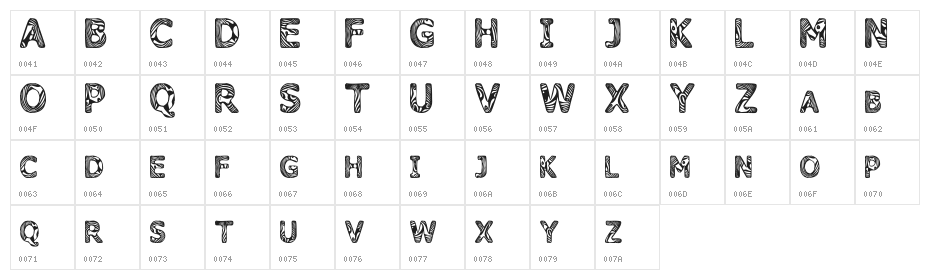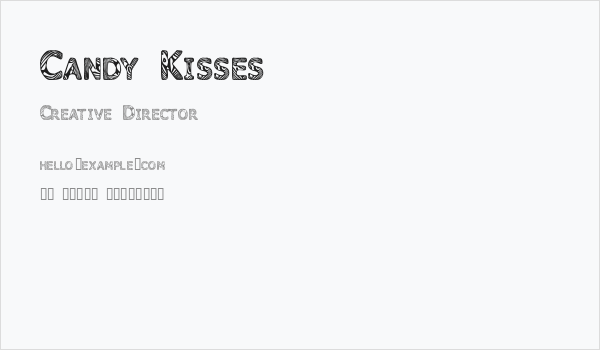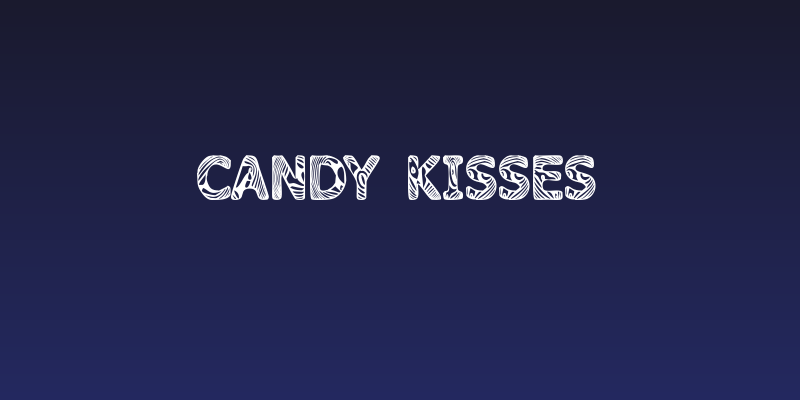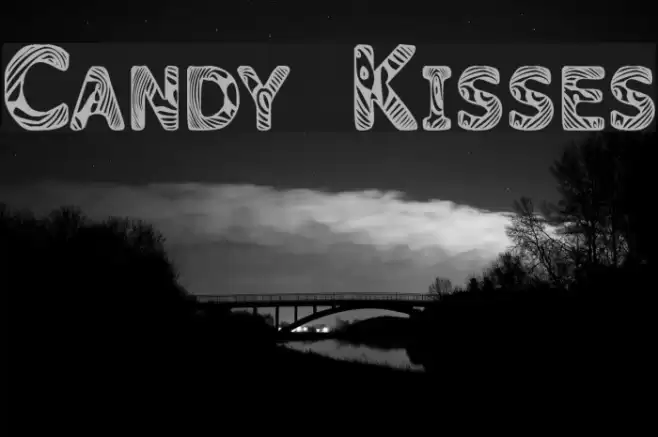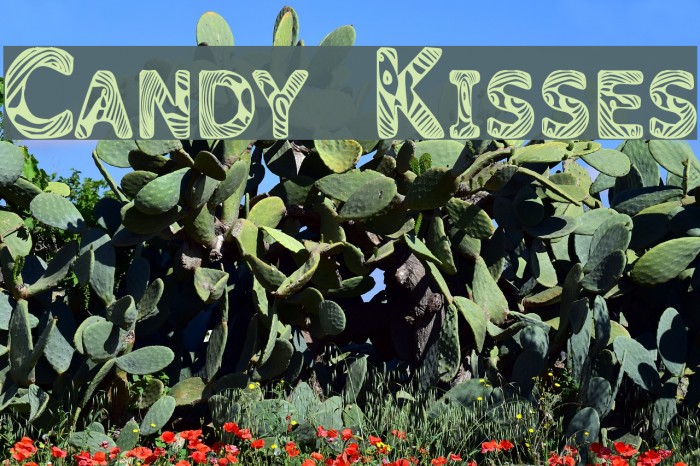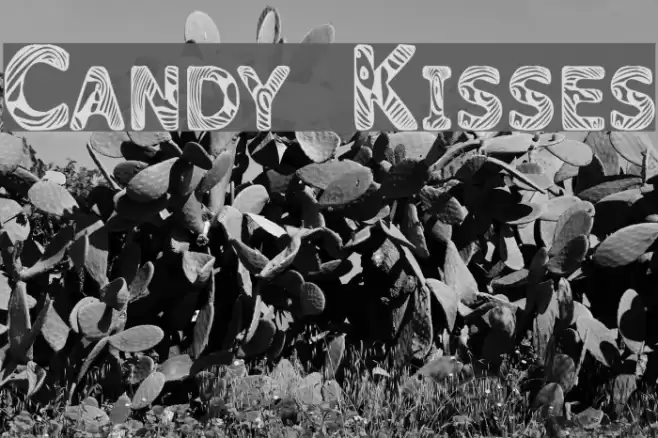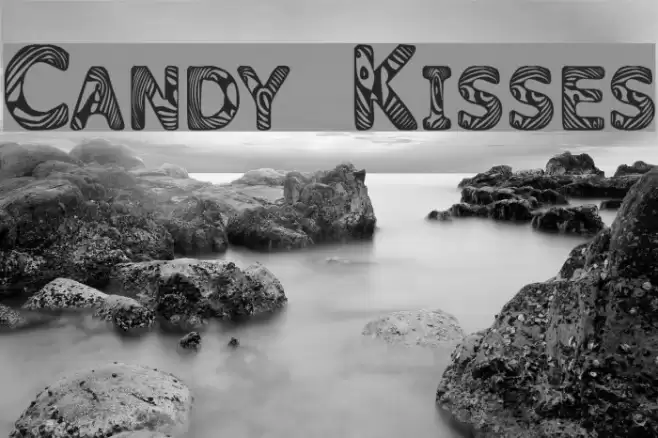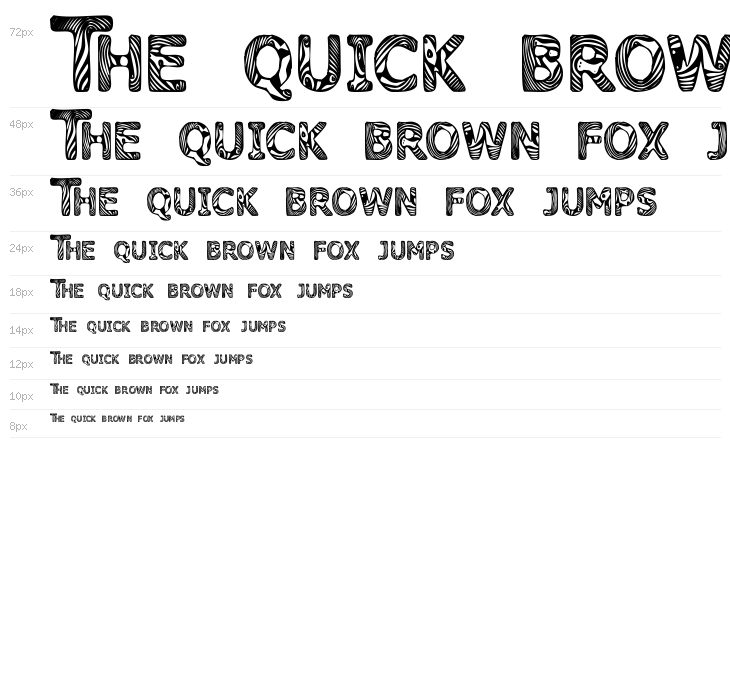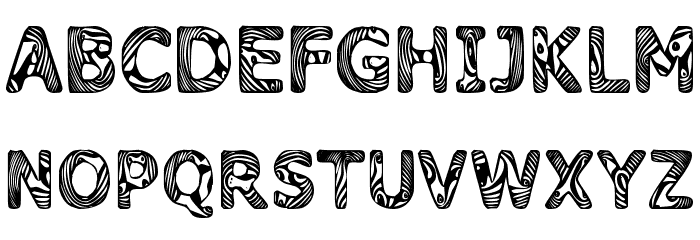
Candy Kisses Font
✎ Decorative
| Estilo general | Playful and Whimsical |
| Proyectos propuestos | Ideal for children's book covers, playful branding, party invitations, or any project requiring a fun and decorative typeface. |